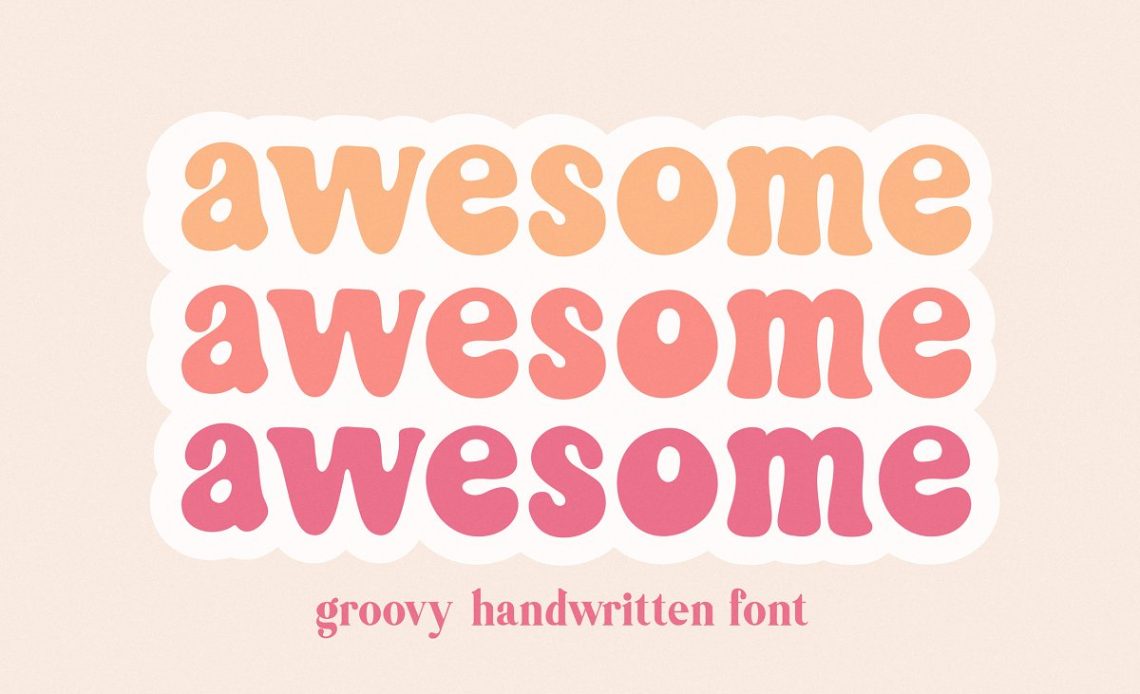
Looking for the best font for print brochures? Look no further than Awesome - Groovy Font for Crafters! Created by the talented Irene Irene, this sans serif font is perfect for those who want to make a statement with their designs.
This groovy handwritten font comes complete with both upper and lowercase letters, punctuation, numbers, and multilingual support, so you can use it to create stunning designs no matter what language you're working in. And, it's compatible with some of the most popular design software on the market, including Adobe Illustrator, Adobe Photoshop, Procreate, and Cricut Design Space.
Whether you're designing brochures, business cards, or any other type of print material, Awesome is the perfect choice. Its unique style is eye-catching and sure to draw attention to your work, while its easy-to-read letters ensure that your message comes across loud and clear.